Black Friday fonts that actually convert: bold displays, condensed digits for price tags, and brush accents for urgency. Browse curated bundles, quick text tools, and ready-to-use headlines to build sale banners in minutes.
Best Black Friday font styles (what works & why)
Bold Sans / Impact Display
Clean, blocky shapes that hold up on mobile thumbnails and tiny price tags. Great for “50% OFF” / “Doorbuster” lockups.
- bold display → big headlines, hero banners
- impact → price badges, “50% OFF”
- extra black → maximum emphasis
- ultra bold → readable on small screens
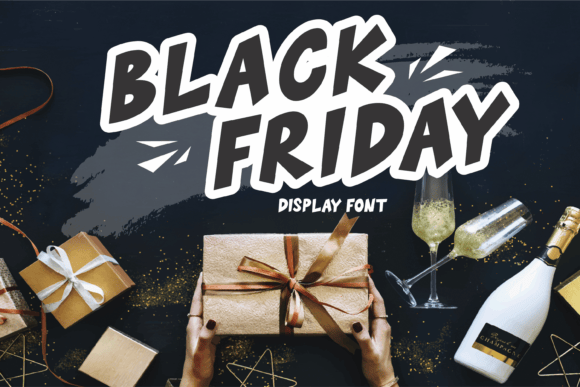
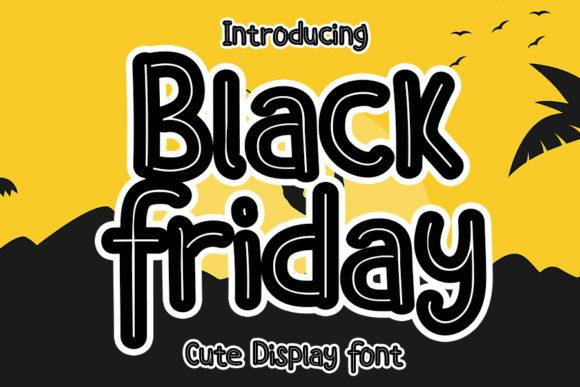
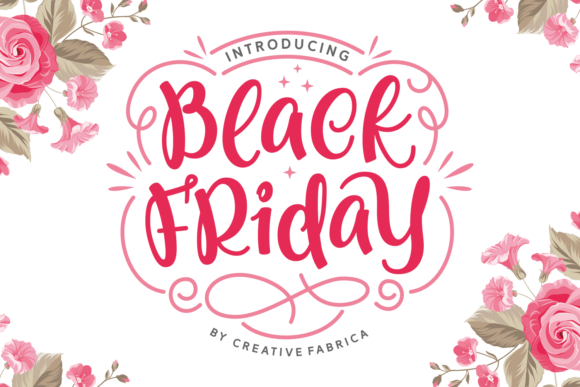
Condensed Digits & Price Tags
Tall numerals let you fit big discounts in cramped spaces (badges, app tiles).
- condensed sans → tight headlines/tags
- compact digits → prices & percentages
- tabular figures → perfectly aligned numbers
- narrow headline → long phrases in one line
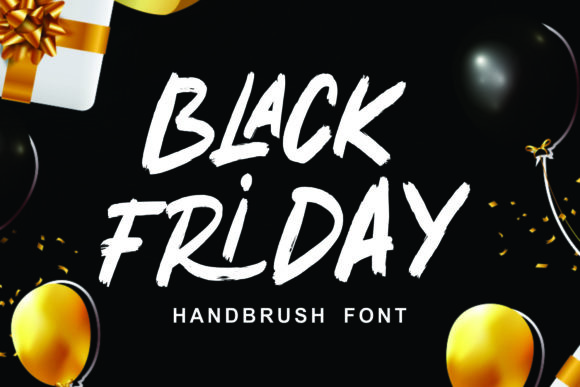
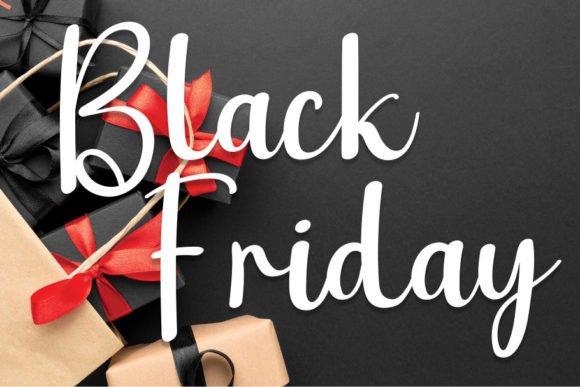
Stencil / Tech / Industrial
“Black Friday” grit and urgency. Good on dark hero banners with red accents.
- stencil display → gritty sale feel
- techno → modern high-tech vibe
- industrial → heavy, rugged tone
- military stencil → “doorbuster” energy
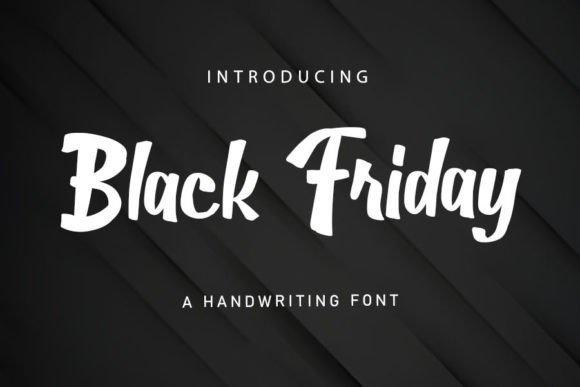
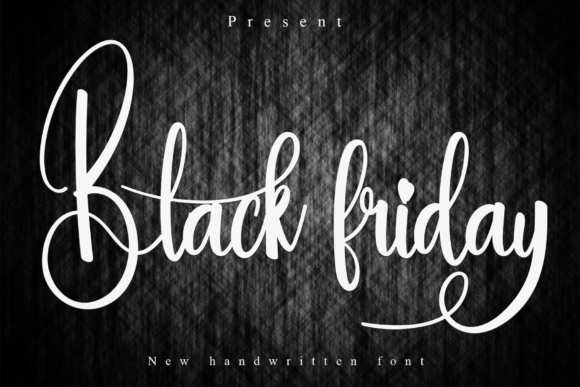
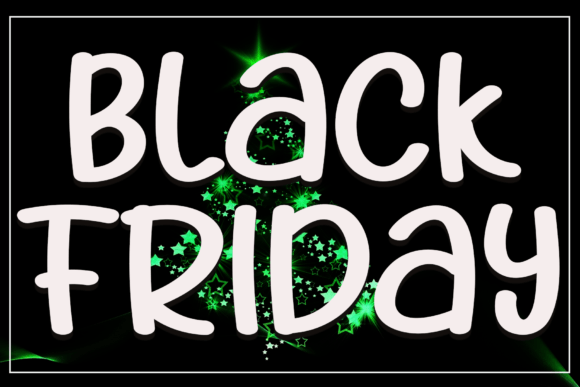
Brush & Marker (handmade urgency)
Energetic strokes for countdowns, last-minute deals, social frames.
- brush font → “Today Only” urgency
- marker font → hand-made price tags
- dry brush → dynamic, edgy strokes
- handwritten brush → lively social accents
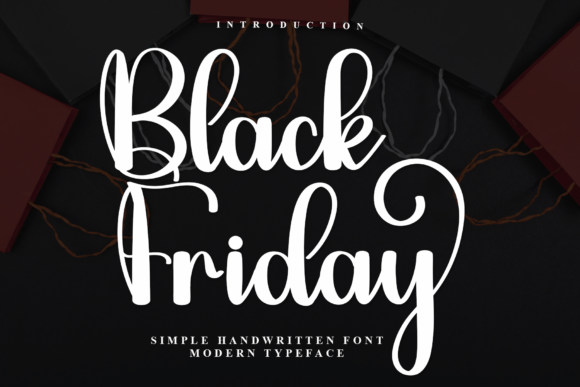
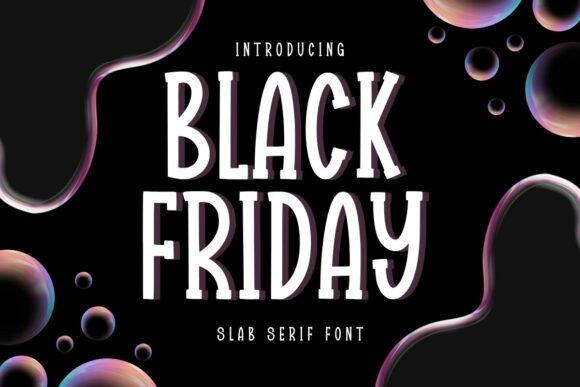
Font pairing recipes (copy/paste)
- Impact headline + neutral sans bodyHEAVY CONDENSED DISPLAY + “open, humanist sans” for legibility.
- Brush accent + condensed priceBrush/Marker for “Today Only”, Condensed Sans for “$129 → $79”.
- Premium serif + mono digitsModern Serif for message, Monospace/Tabular for prices & countdowns.
Rule of thumb: one loud star + one quiet helper. Keep contrast in weight/width, not in chaos.
Color & layout tips for sale creatives
- Contrast first: black/dark background + white or yellow type; red for accents only.
- Badge shapes: circles/rounded squares read best at small sizes (app cards, carousels).
- Numerals pop: tabular figures align 10/100/1000 neatly.
- Don’t over-italicize: narrow italic + condensed = illegible on small screens.
- Accessibility: aim for WCAG AA contrast on text over photos.
Workflow for speed (10-minute banner)
- Choose one Bold/Impact font + one helper sans.
- Set background to near-black (#0C0C0C) and add a soft vignette.
- Headline in all-caps, –10 to –30 tracking (depends on font).
- Price with tabular figures; pair a red badge #E11900.
Frequently Asked Questions
Bold condensed sans with strong numerals. They read at a glance and compress well in small spaces.
Brush adds urgency, but keep it to accents. For long text, neutral sans remains the most legible.